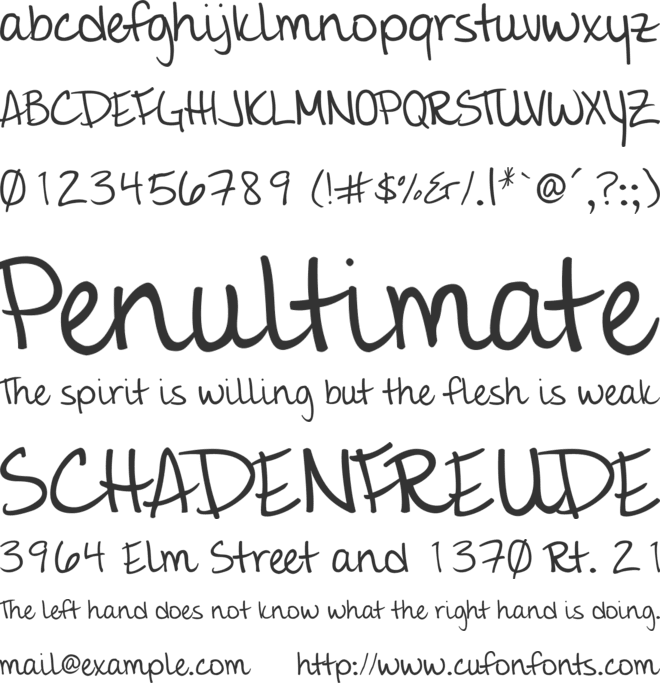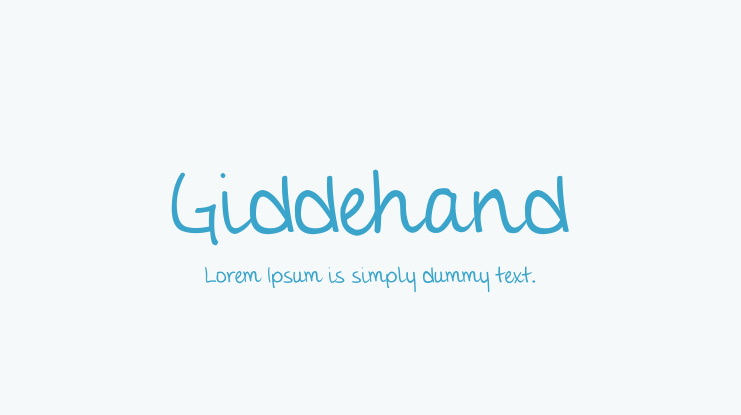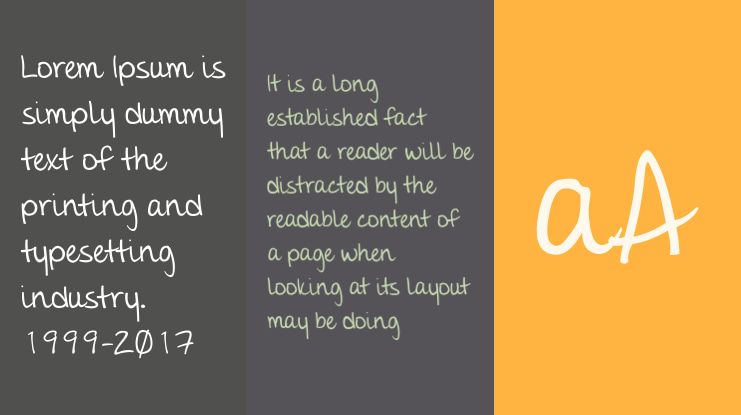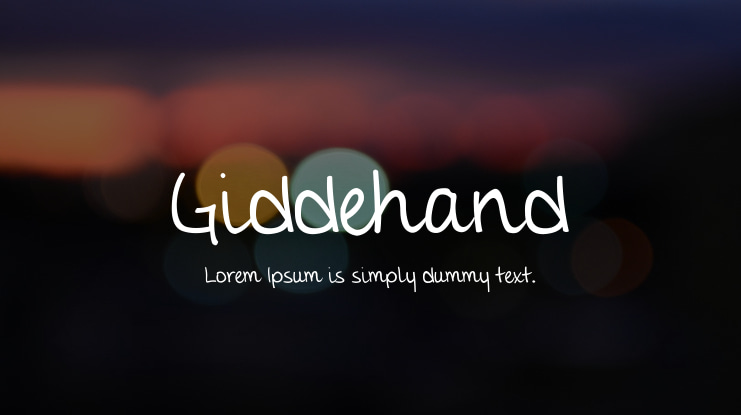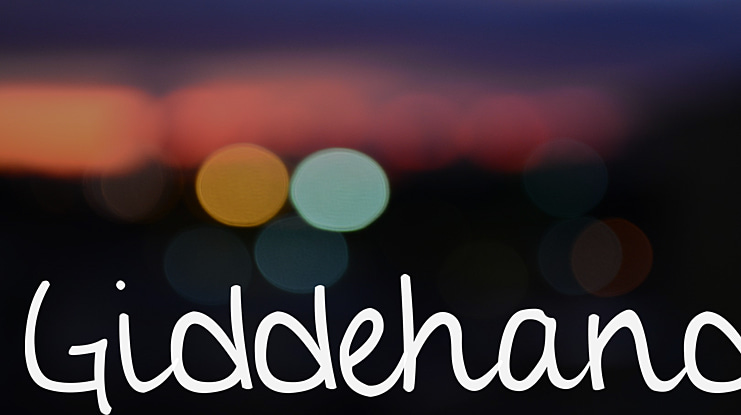
Giddehand Font
GiddeHand is a casual, ballpoint half-script based on my own handwriting. If you use and enjoy the font, or if you have any requests, comments or suggestions, please leave a comment! Thanks!